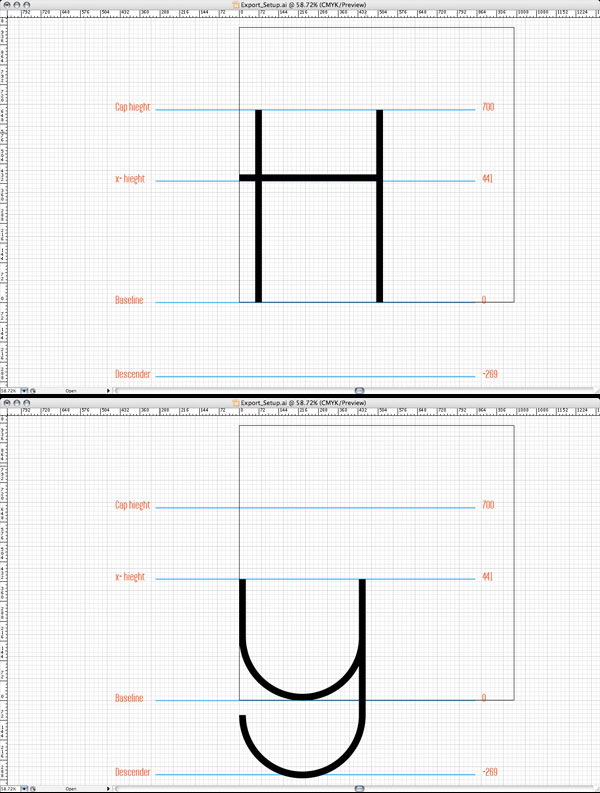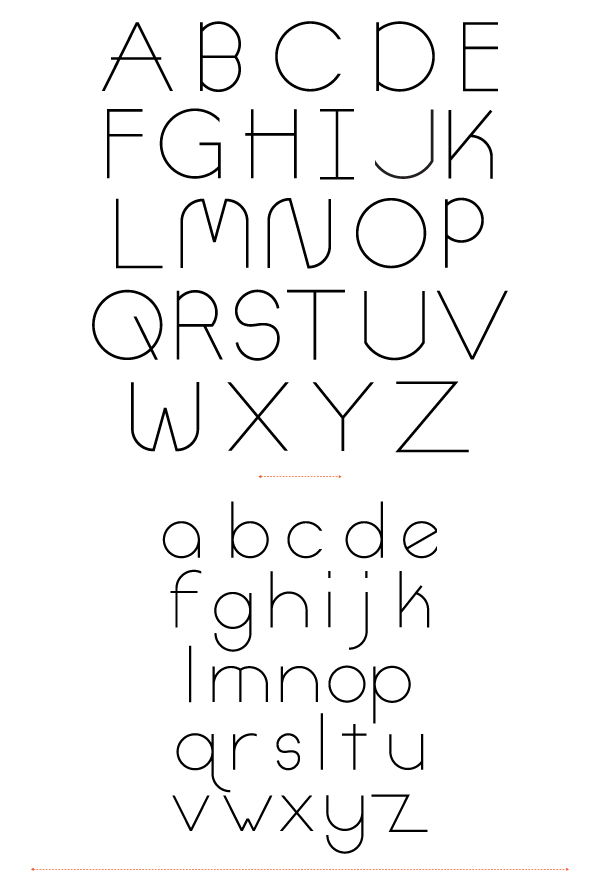
Final Product What You'll Be Creating
In this installment of Designing a Typeface we will be continuing on with the artwork from Part 1. So you’ve got the framework for some lovely letters worked out, and have used some of the basic principles of typography to establish a system to design within. Now its time to take these rules and flush out into a full-fledged typeface. Back to work, lets keep having fun!
Step 1
Whether you start with the letter A and go to Z, or create similar letter groups (aceos, lijft, bdghpqy, vwkyxz, mhnur), all the characters need to be created. I prefer to use similar letter shapes to generate new letters. It seems to be a faster and more productive way to work and helps to keep things consistent.
Step 2
Here is an example of creating uppercase letters that are similar in shape and form. Starting with the P, which is created with a vertical line, a circle and a ‘cropping’ white shape (1), simply create a copy to the right (option + Drag) and mirror the top circle to the bottom, creating a rough base for the letter B (2). Extend the white shape on the left, apply a fill on the bottom circle and a white shape to crop the rest of the remain overlapping circles (3). Draw a horizontal line, from the point where the 2 circles intersect to the spine to create the letter B (4). To create the R, simple delete the bottom circle and reflect the cropping white shape (5). Draw the diagonal line in the appropriate position, creating the letter R (6).
Step 3
Characters with curves can be tricky, consistency is the key. Using the same shapes will simplify the process. Notice how I’m using the same exact shapes to create multiple letters. The g is a reflected p, with a modified descender. The q uses the same shapes, except the descender is reflected and modified. The j and f use the same modified descender from q.
Step 4
Again, notice how simple it is to create new letters from existing letter shapes. You may have or want to make some exceptions, notice how the u is an upside n, with a minor revision.
Step 5
My progress, uppercase.
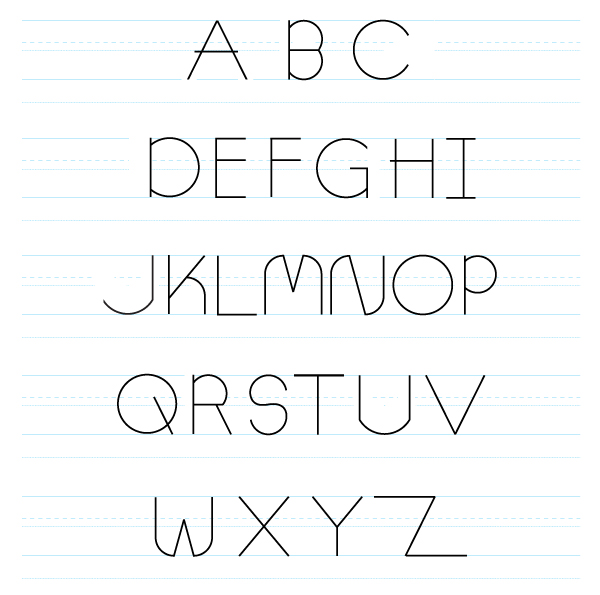
Step 6
And lowercase.
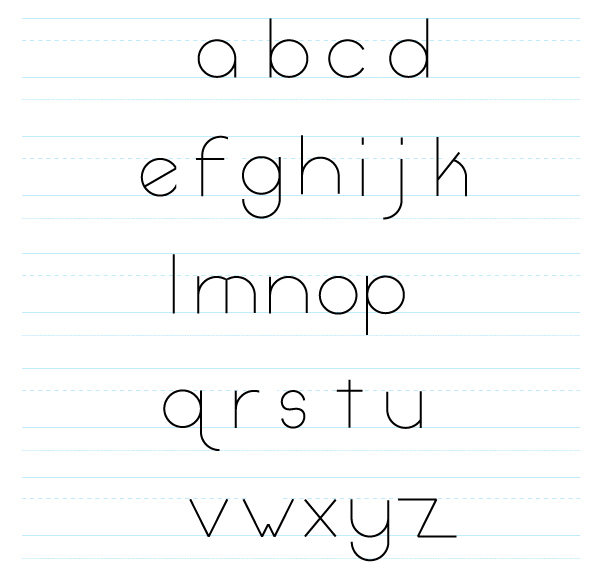
Step 7
Don’t delete characters just because they don’t fit the grid or you decide not to use them in the final character set. They can still be included as alternate characters, here are a few leftovers.
Step 8
Next move on to all the extras; numbers, punctuation, international characters, etc… Obviously, again its smart to use lines or shapes from other characters. Here the S becomes an ampersand (&). It is very important to create a full character set, including international characters. This will make the typeface more professional and far more versatile. The worst is when you go to use a typeface and it doesn’t have the necessary characters. You can find a fairly standard and comprehensive typeface set here.
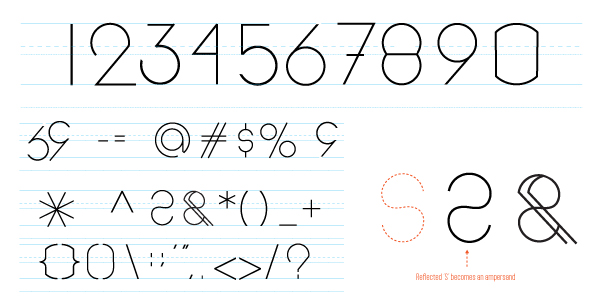
Step 9
Periodically, check and see how your typeface looks when used. Create the characters for the word ‘hamburgefonstiv’, this is a classic way to help you judge your progress and flush out remaining characters. It also helps to check character proportions as well as vertical/horizontal spacing.
Step 10
Now you’ll want to make any corrections modifications, substitutions, etc… Depending on your specific typeface you may have to make some characters that need optical corrections. For example, if you put the O and H next to each-other on the guidelines, the O may look slightly smaller (height). Even if they are mathematically perfect, they still may not visually look ‘right’. By subtly increasing the height of the O, reaching over the baseline, you can make the characters look correct.
Step 11
At this point you have decided on the weight, or stoke weight, of your typeface (2.5pt in my example) and have applied it consistently across all characters. Thus far only lines (with stokes) and white ‘cropping’ shapes have been used to create the letters. In-order to get them into FontLab, you cannot have strokes or multiple shapes, each character needs to be one shape. So you will need to convert any line with a stroke to outlines. Select all the appropriate lines and go to Object > Path > Outline Stroke.
Tip: An easy way to select all of the appropriate lines is to simply select one line, using the selection tool (black arrow) and go to Select > Same > Stroke Weight. This will select all of the black lines with the 2.5pt stroke.
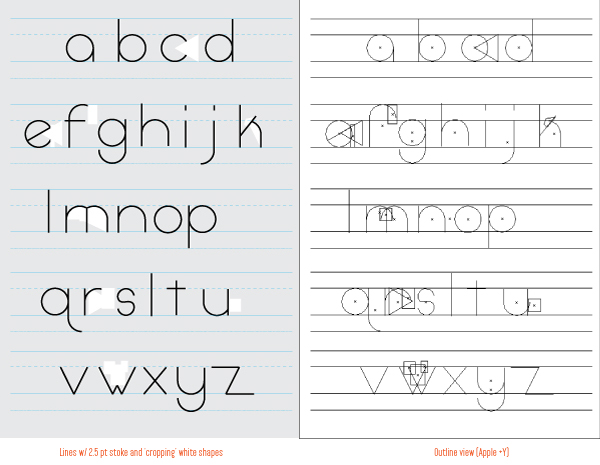
Step 12
Use the pathfinder palette to crop or trim any area where you used the white shape to develop the letter-form. In-order to guarantee there are no issues I suggest doing each character individually. For example, the D is constructed by a circle and vertical line and a white shape ‘cropping’ the left side of the circle (1). Once the strokes are outlined, select the white shape and the circle and while holding the option key, click the Subtract from Shape option in the Pathfinder palette (2). The white shape will disappear, cutting or ‘cropping’ the let side of circle. Next, select both the vertical line and the remaining part of the circle (hold option) and click Add to shape area option in the pathfinder palette (3).
Step 13
Here are my finalized, outlined, lowercase characters. Each letter is single shape. There are no longer line with a strokes, or white shapes, just single expanded shapes. I have used just the lowercase letters for display purposes, apply this outline/pathfinder process to all characters.
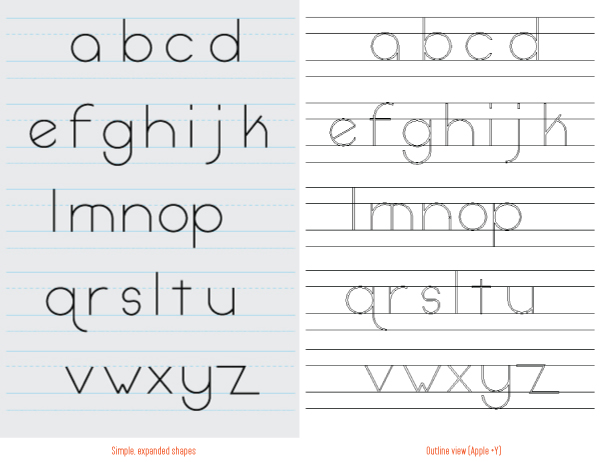
The mixture of angles is interesting for the traditionally round letters…